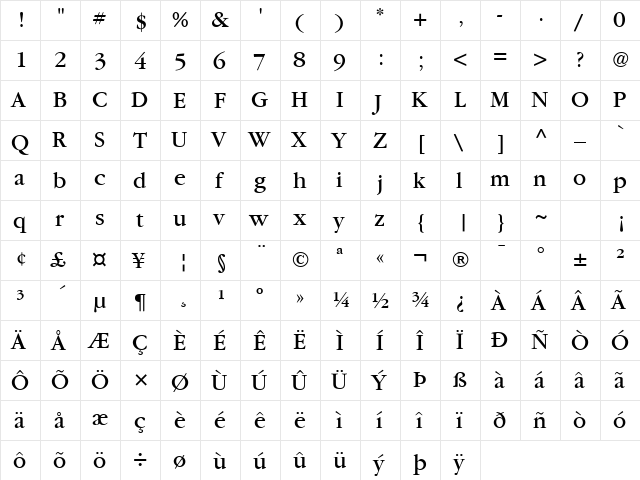
Garamond Book SSi Book
Design Context for Garamond Book SSi Typeface
Garamond Book SSi takes a measured approach to typography — its balanced proportions and neutral character make it a reliable workhorse for both digital and print work.